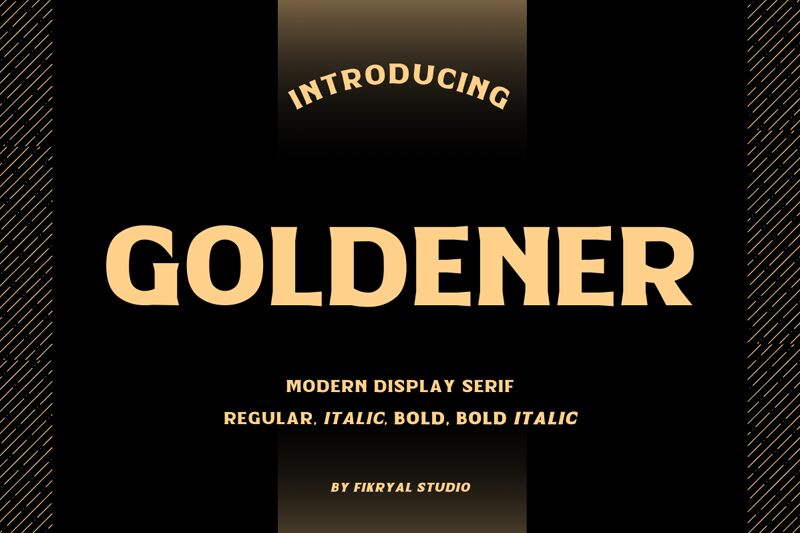
Goldener Italic font by Muhamad Fikry Nuralif of Fikryal Studio in the Goldener family is a free serif font with a punchy forward slant and thick, ink-heavy strokes. It feels fast and confident-like painted lettering on a race banner-while staying clean enough to read at a glance. The wide shapes and tight rhythm give headlines real momentum without turning messy.
Using Goldener Italic, try it on sports branding, streetwear tags, event posters, gaming titles, album covers, YouTube thumbnails, or bold product packaging. This free font shines when you keep the wording short and give it breathing room. Pair it with a neutral grotesk sans for body copy, and let Goldener Italic handle the loud parts.